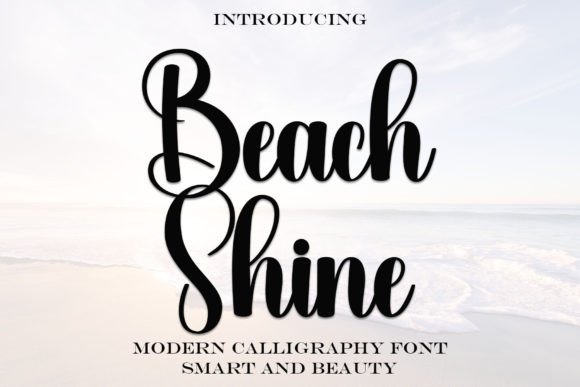
Beach Shine
Finding the right design elements can be challenging, but Beach Shine offers an exceptional collection that elevates your work instantly.
Whether you are creating POD (Print on Demand) products, wedding invitations, or social media graphics, Beach Shine is an ideal fit.